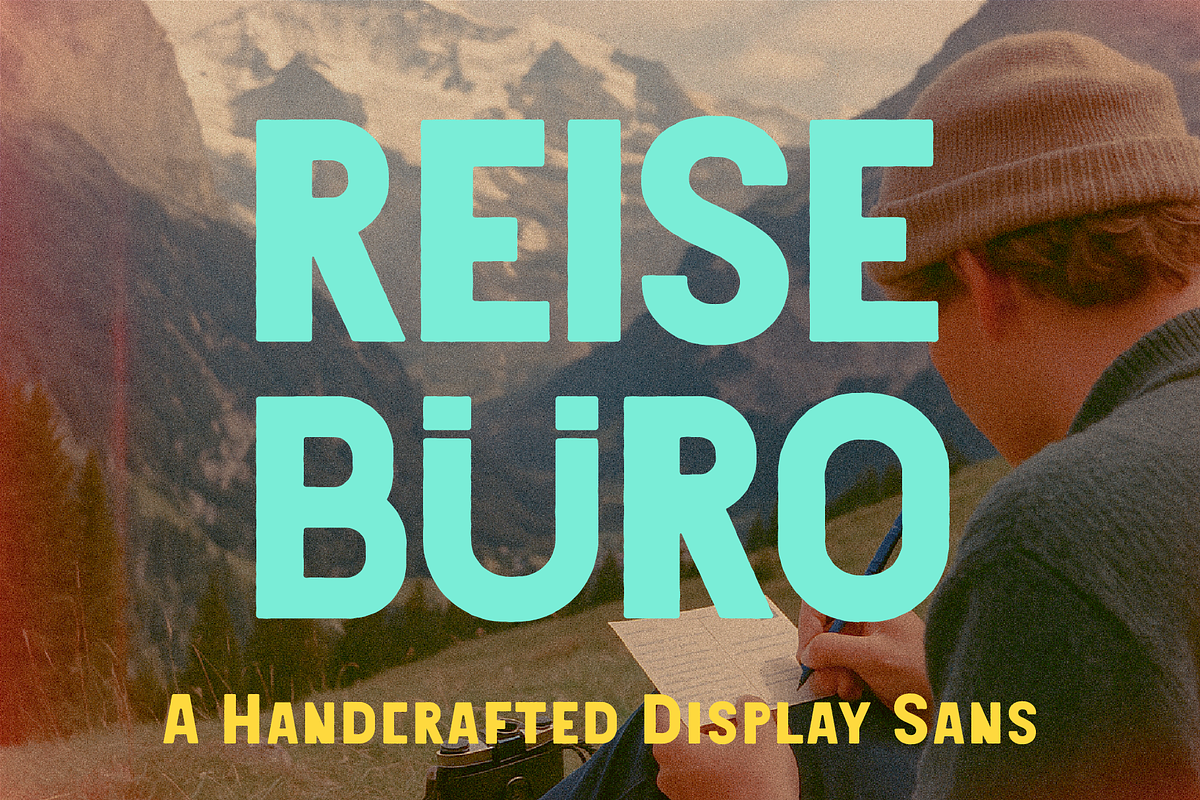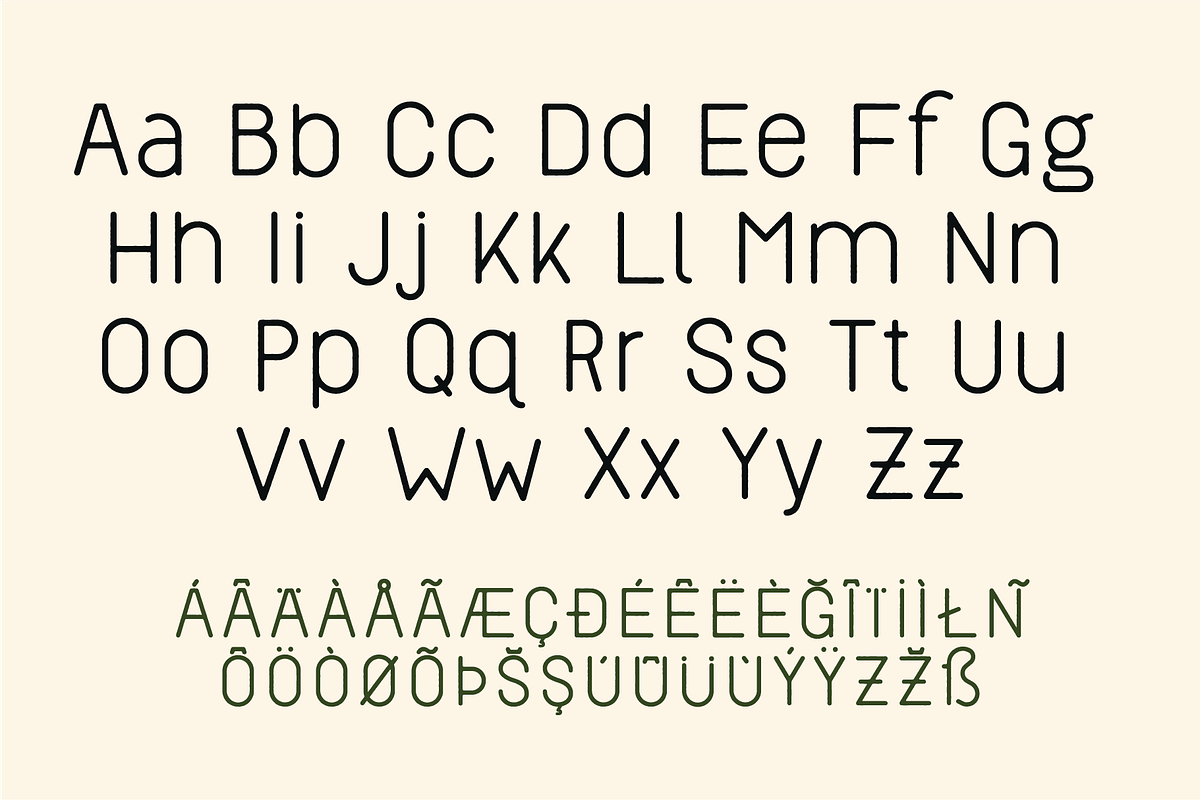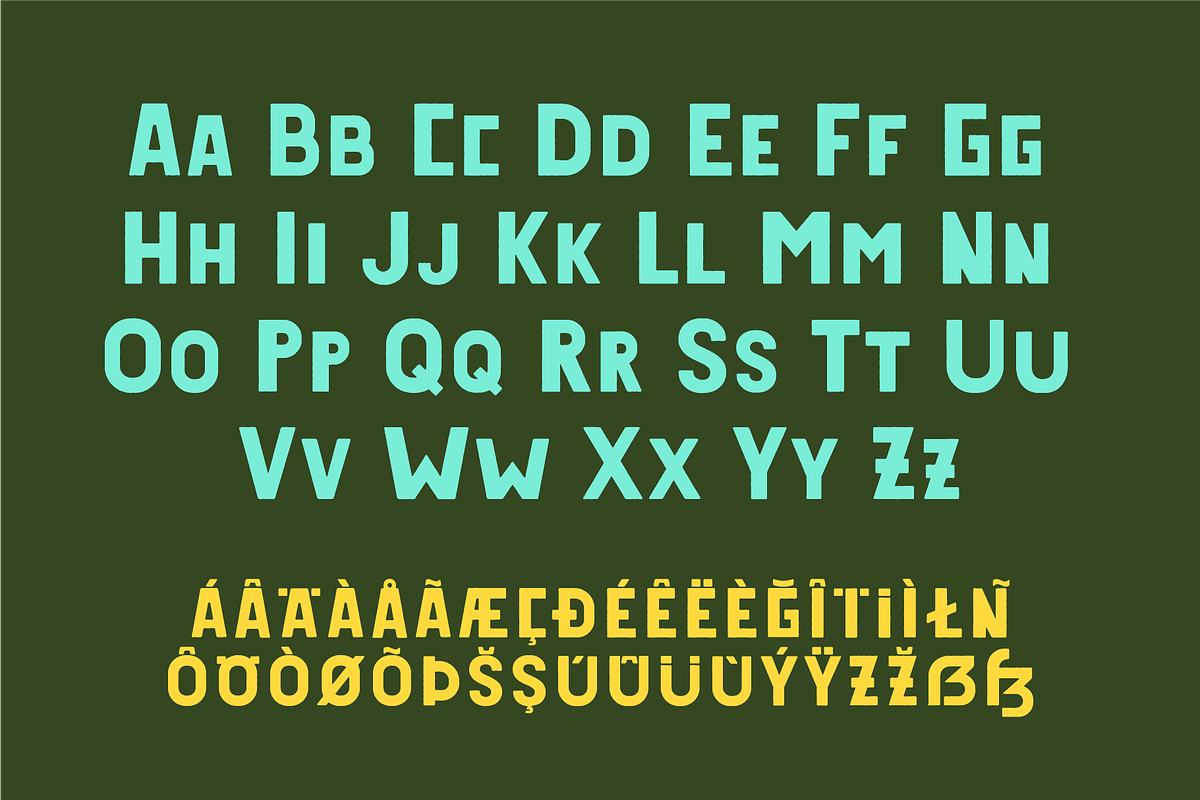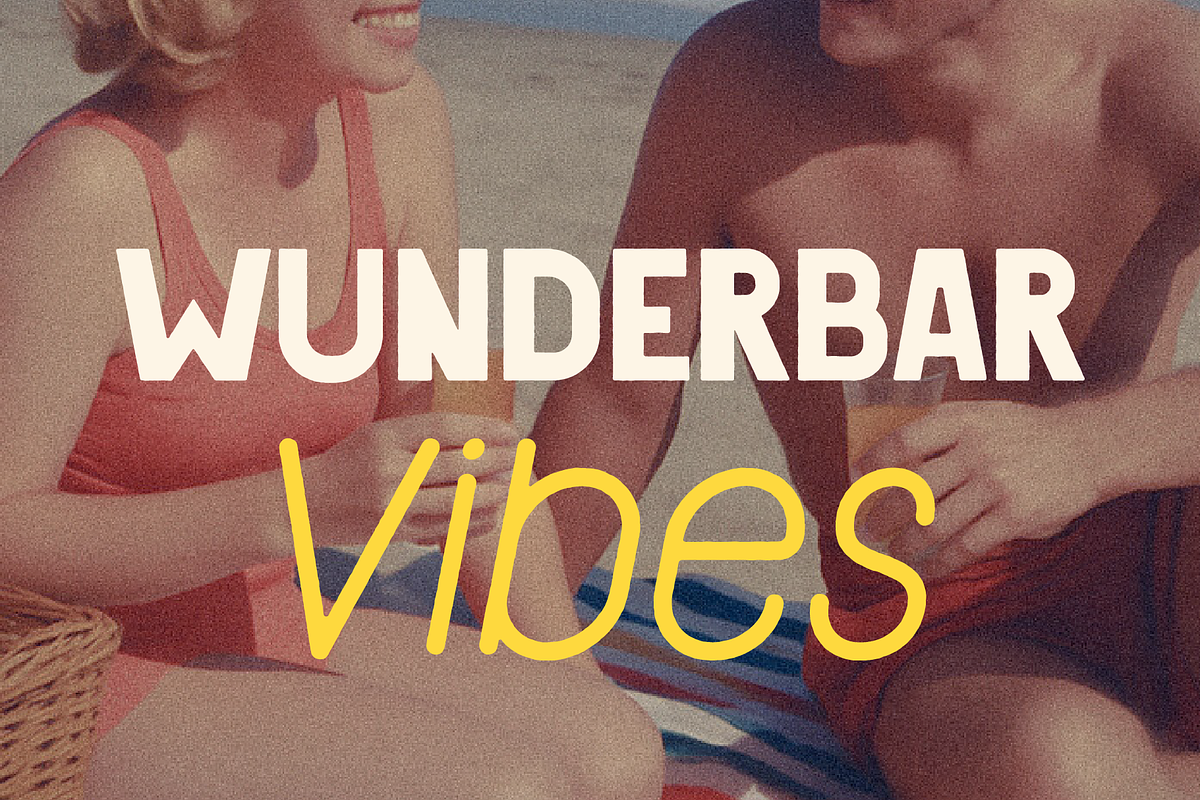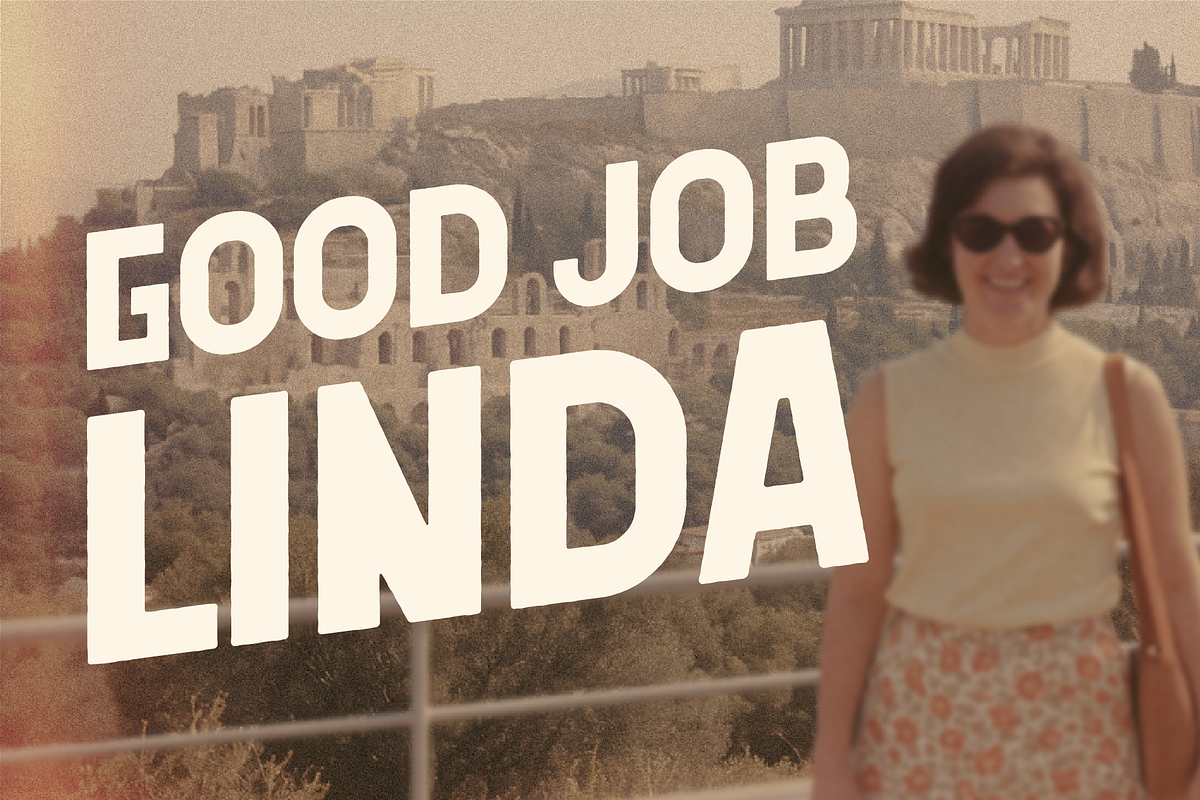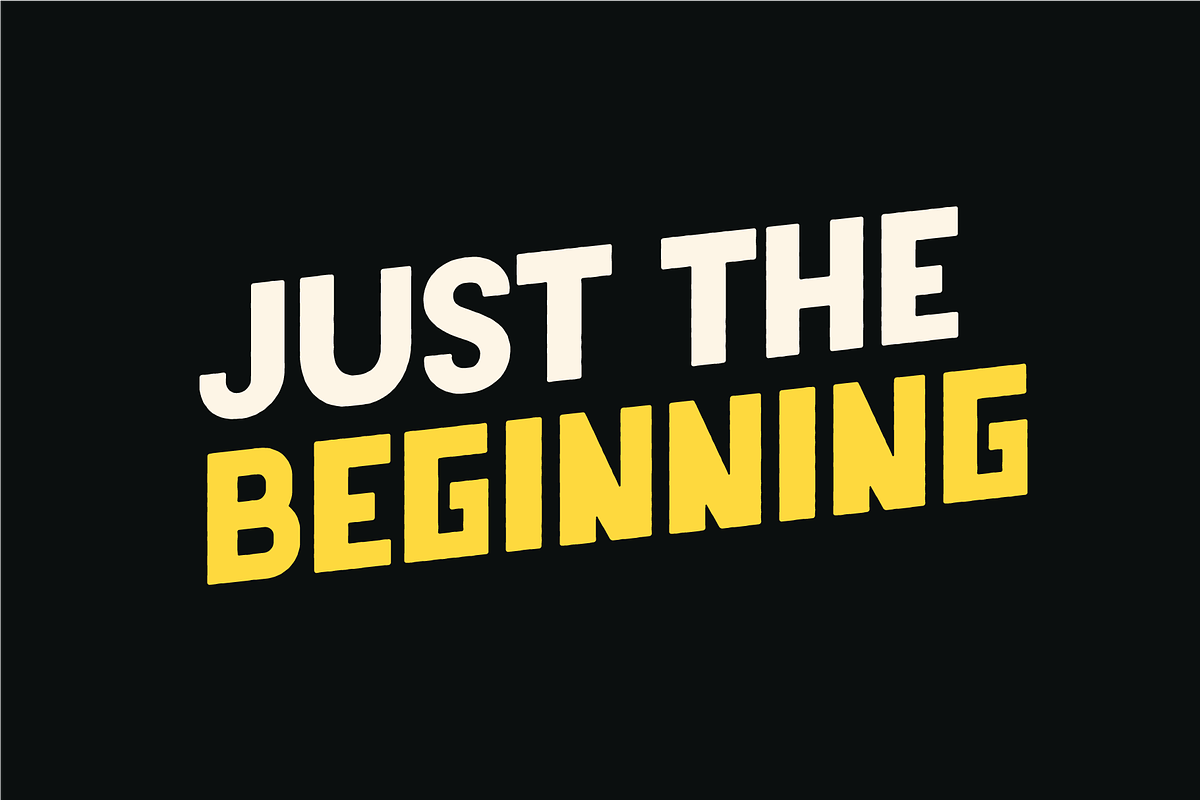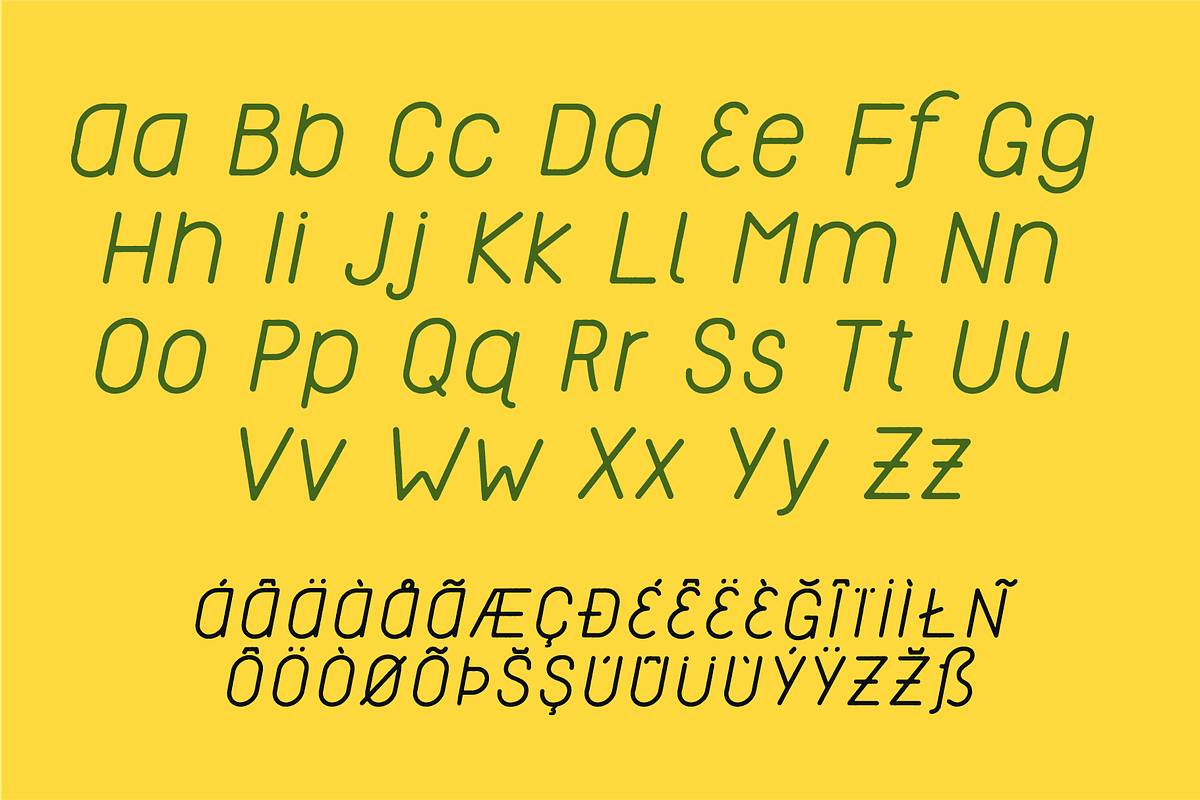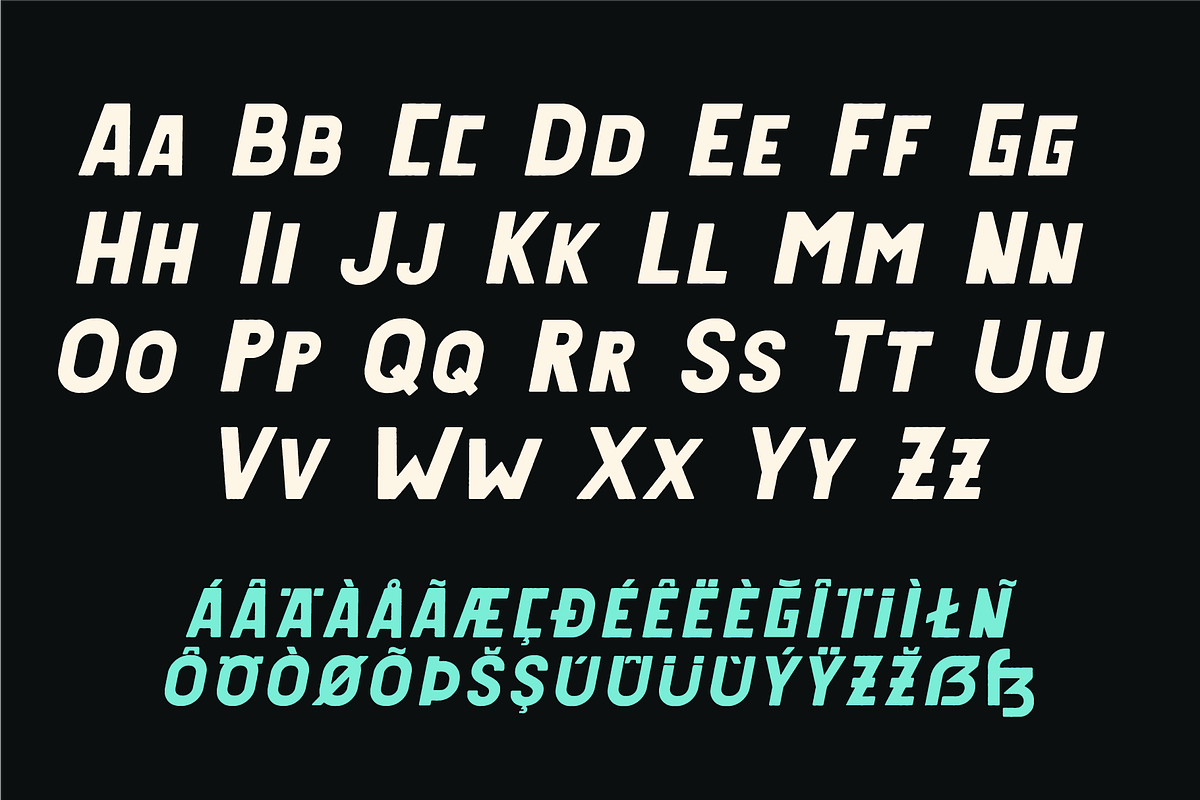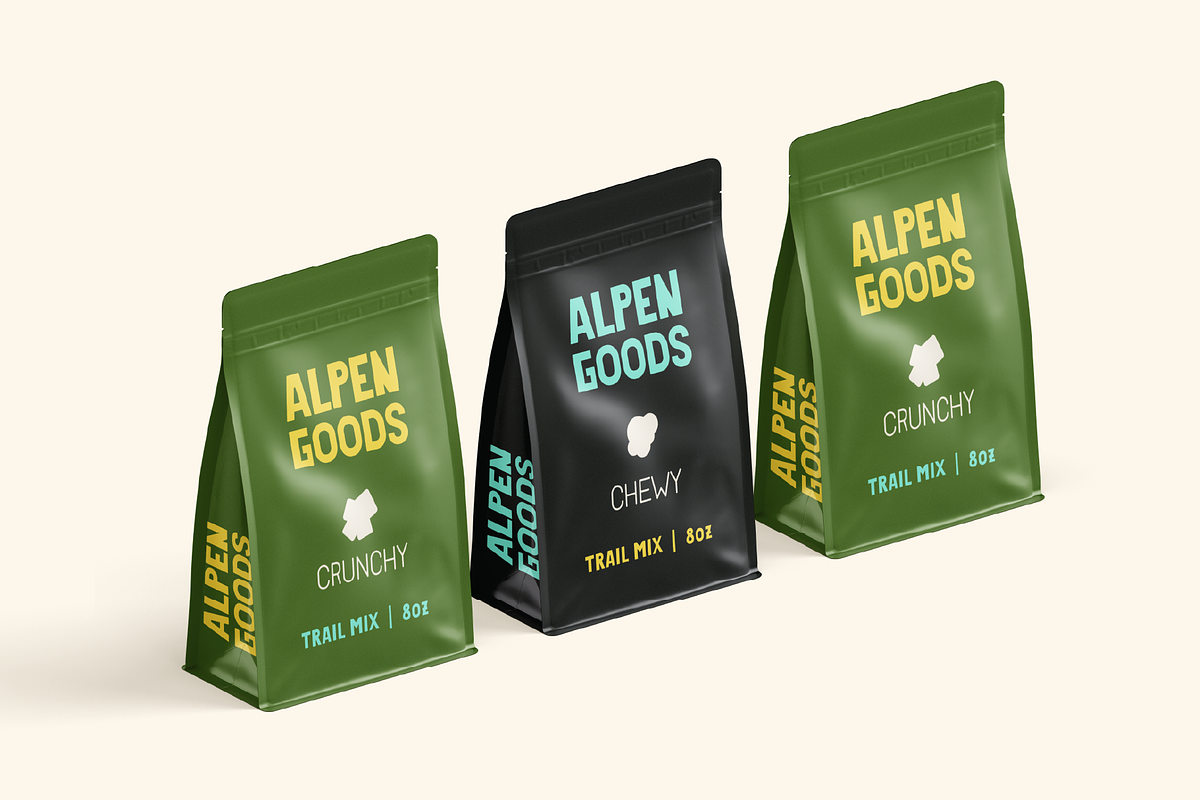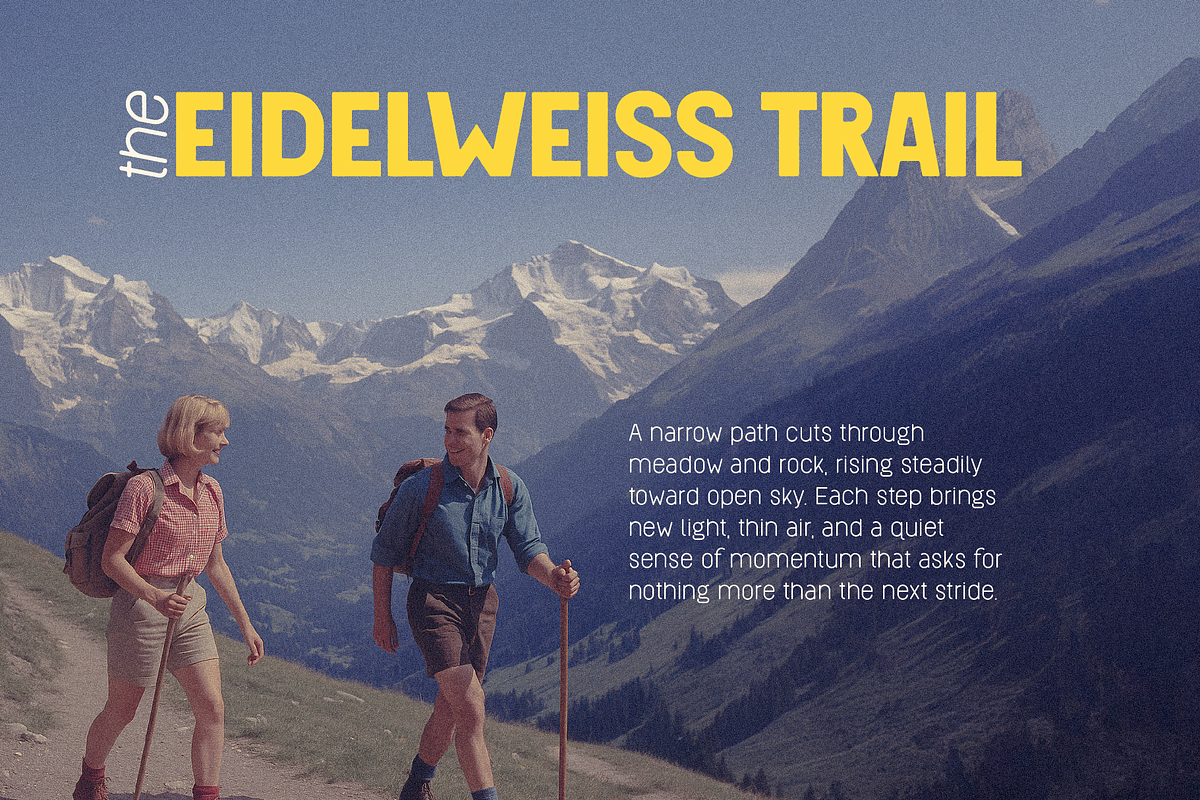
Reisebüro — Handcrafted Display Sans
Reisebüro – Handcrafted Display Sans
Reisebüro is a confident hand-drawn display sans that combines solid structure with a distinctly human touch. Its bold geometric shapes are tempered by organic detailing, giving it warmth and personality without sacrificing clarity. Designed for versatility, it performs equally well in logos, headlines, posters, and packaging where a handcrafted yet disciplined look is needed.
The family includes four styles — Regular, Regular Oblique, Thin, and Thin Italic — offering a useful range from strong and expressive to light and understated. Each style carries the same handcrafted feel, ensuring consistency across weights while maintaining visual interest.
- Four styles: Regular, Regular Oblique, Thin, and Thin Italic
- Extensive multilingual support including Western, Central, and Eastern European languages
- Handcrafted texture and subtle irregularities for an authentic look
Reisebüro delivers confident, handcrafted simplicity—built for designers who want clean typography with genuine character.